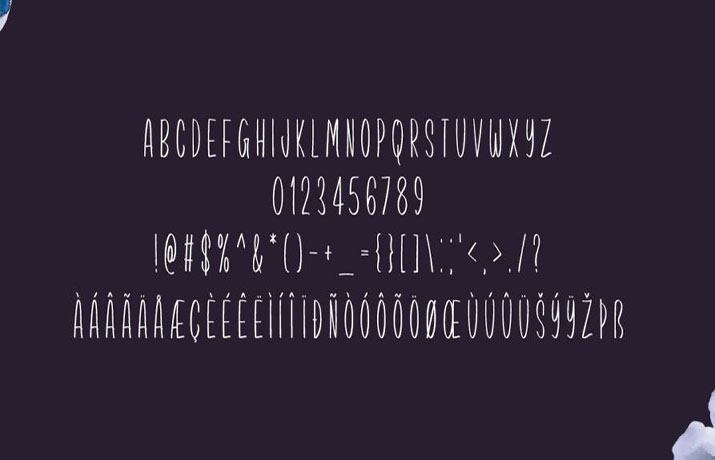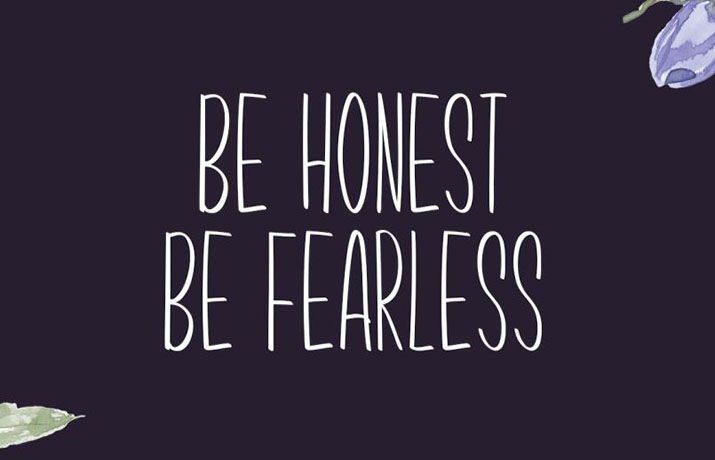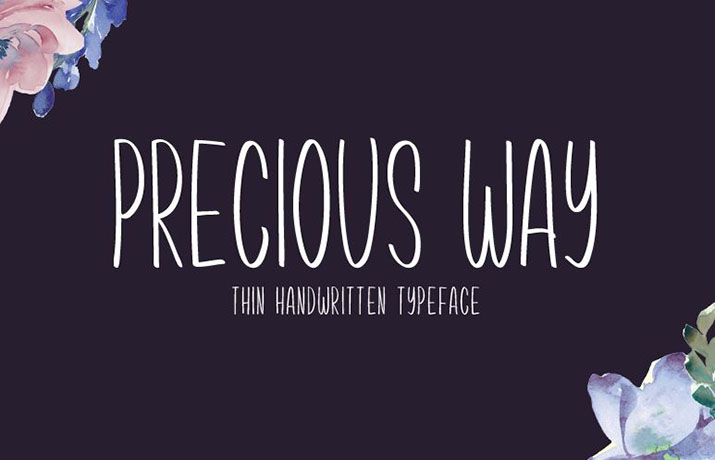
Precious Way Font is a script handwritten typeface that comes with thin tall letterforms. It was designed and published by Md Shohail Bhuian.
This font has a thin shape that looks like someone drew it with a marker. and then convert it to a font file. Hence, it provides a natural look when applied to any design.
You can easily use it for special quotes, product designs, book covers, blog headers, posters, weddings, branding, logos, fashion, apparel, lettering, game titles, stickers, and many more.
- Uppercase letters, symbols, and punctuation
- 210 glyphs and 792 binary stored kerning pairs
- 68 multilingual languages support
Style: | Handwritten, Script, Display |
- The causal style of lettering makes it ideal for logos, product packaging, product design, comic covers, game titles, game development, movie posters, unique signs, product design, special event cards, game graphics, product design, and special event cards. Printing on cartoons, titles, headers, titles, flyers, signs, banners, headers, kids elements, headers, banners, flyers, headers, cards, and more.